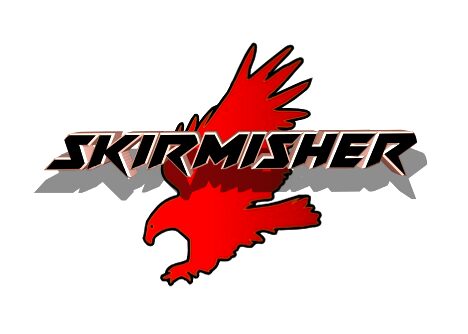
Skirmisher Semi-Leftalic
Skirmisher Semi-Leftalic, a captivating display font from the Skirmisher family, designed by Iconian Fonts, exudes a futuristic and expanded aesthetic. Its striking semi-italic form, complemented by sharp edges and a sense of dynamism, instantly commands attention. This font effortlessly blends a sleek, modern sensibility with a touch of rebellious flair, making it a compelling choice for projects seeking to convey a bold, forward-thinking visual identity.
Skirmisher Semi-Leftalic's versatility shines through its ability to elevate a wide range of design applications, from eye-catching headlines and logo designs to impactful branding initiatives. Its expansive form lends itself well to creating a sense of prominence and command, making it an excellent selection for packaging, editorial layouts, and promotional materials that demand a strong, attention-grabbing presence.